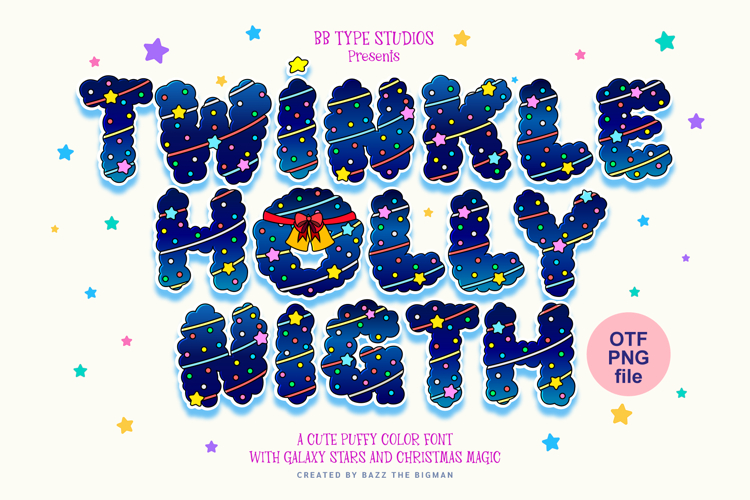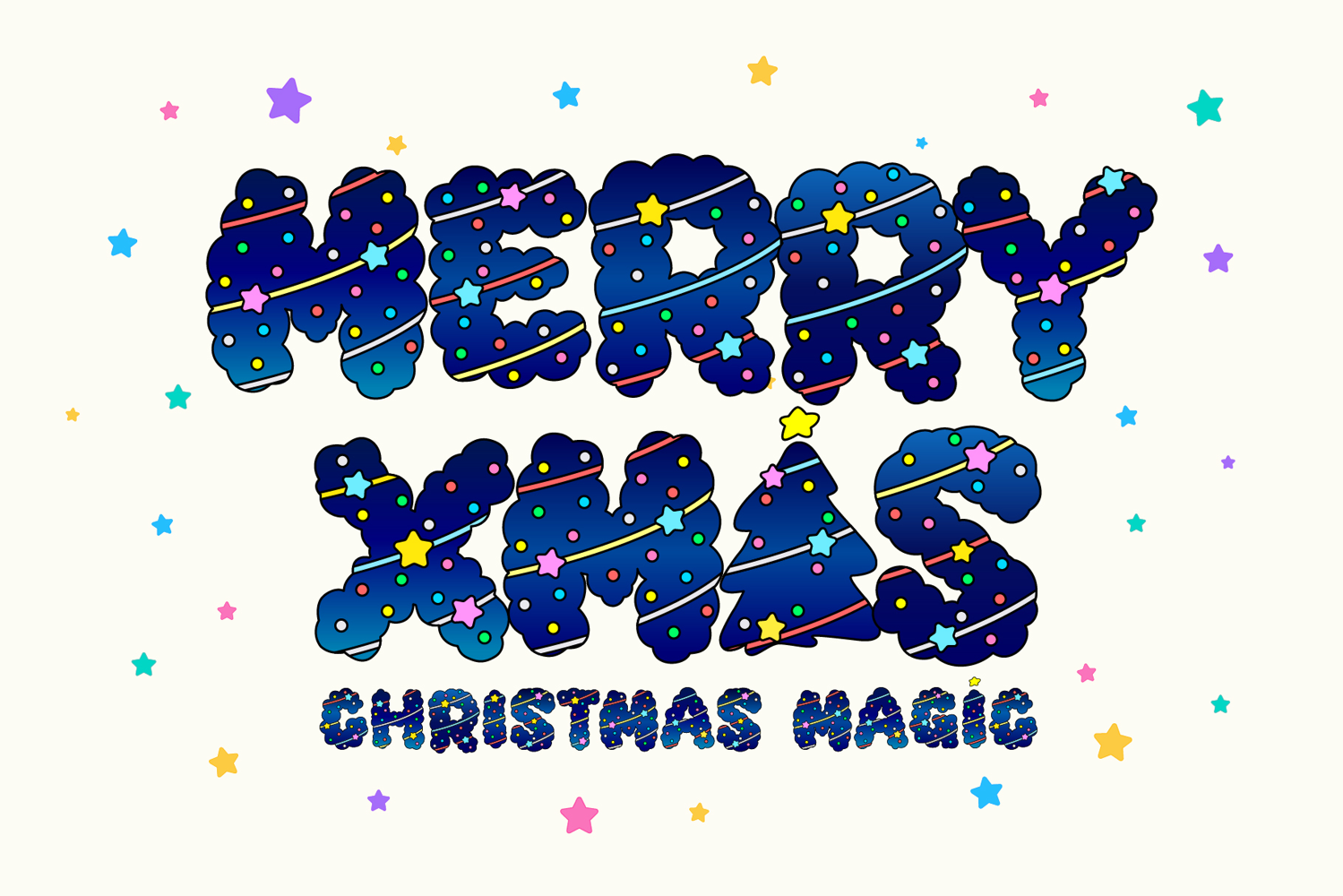
Twinkle Holly Night
Immerse yourself in the celestial beauty of Christmas with Twinkle Holly – Night Color Font. Drawing inspiration from the shimmer of stars, radiant holiday lights, seasonal adornments, and tranquil Christmas Eve, this colour font infuses a mesmerizing nocturnal ambience into every design application. Adorned with vibrant ornaments, ribbon accents, radiant stars, and festive highlights, each character is enrobed in a luxurious midnight-blue hue, echoing the spell of a mystical Christmas night. Ideal for crafting captivating holiday visuals possessing a warm, whimsical and captivating aura.